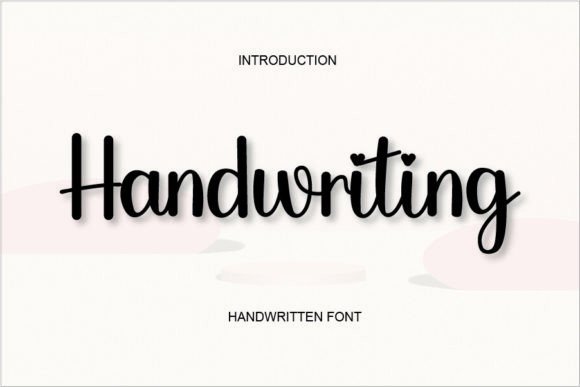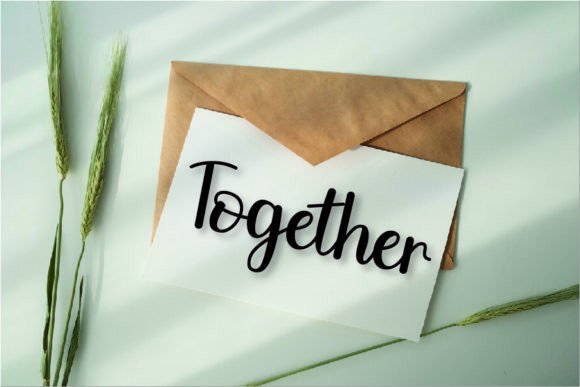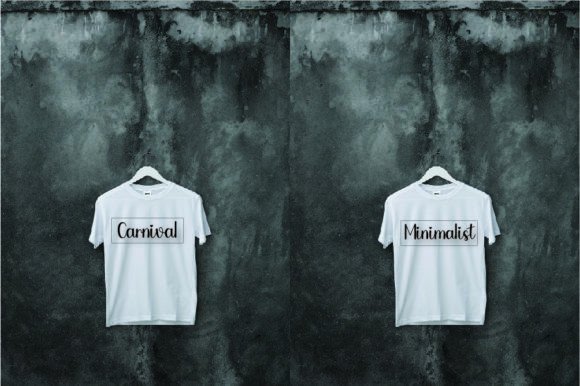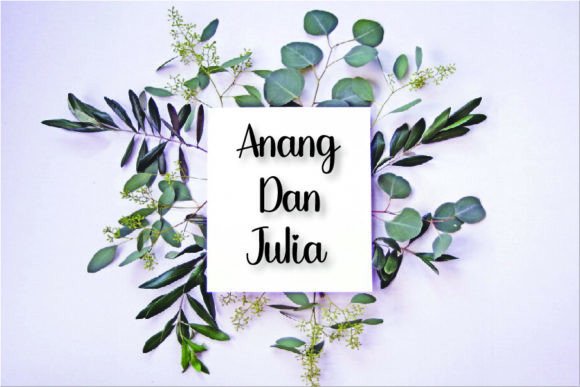
Handwriting Font
About the Handwriting Font
The Handwriting Font offers a perfect balance of form and function for your design needs. Handwriting is a sweet and cursive handwritten font. This gentle font will look gorgeous on a variety of design ideas. It will add a joyful and romantic touch to each of your projects! Perfectly fit for branding, logo, wedding things, greeting cards, fashion, lookbook, marketing promotion, and any time you want your design to look fancy and elegant but still casual.
Handwriting excels as a display font for headlines, short text blocks on invitations or packaging, and logos where its delicate cursive form adds a touch of elegance and personality. It’s ideally suited for brands projecting a romantic, feminine, or handcrafted aesthetic. Avoid using it for body text or large blocks of text, as its cursive nature can hinder readability.
For optimal visual balance, pair Handwriting with a clean sans-serif like Open Sans or Lato for body copy. A geometric sans-serif, such as Montserrat, would provide a modern counterpoint, while a classic serif like Garamond could offer a touch of timeless sophistication. Consider using a simple script for secondary text elements to reinforce the handwritten aesthetic, but maintain consistency in weight and style to prevent visual clutter.
The overall personality of Handwriting is friendly, romantic, and approachable. Its delicate forms convey a sense of warmth and intimacy, making it perfect for projects that prioritize connection and personal expression.
Handwriting Font Usage Examples
Handwriting Font Example